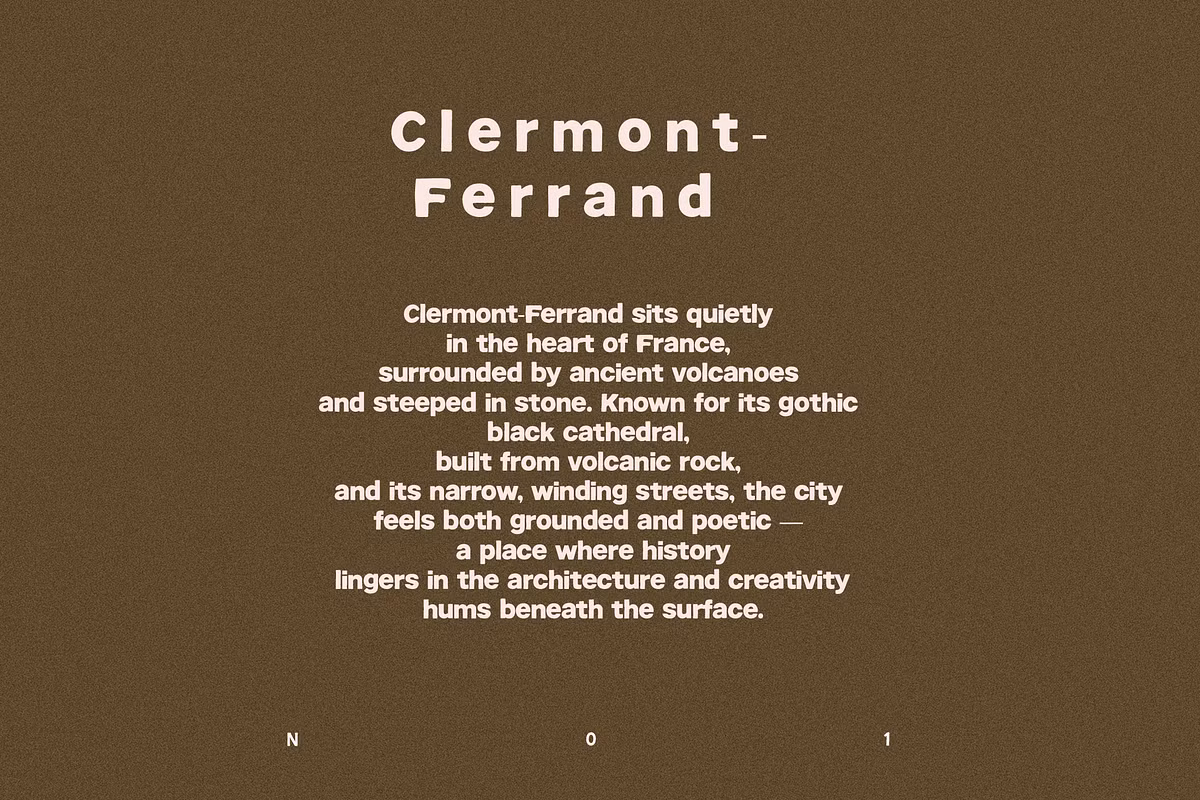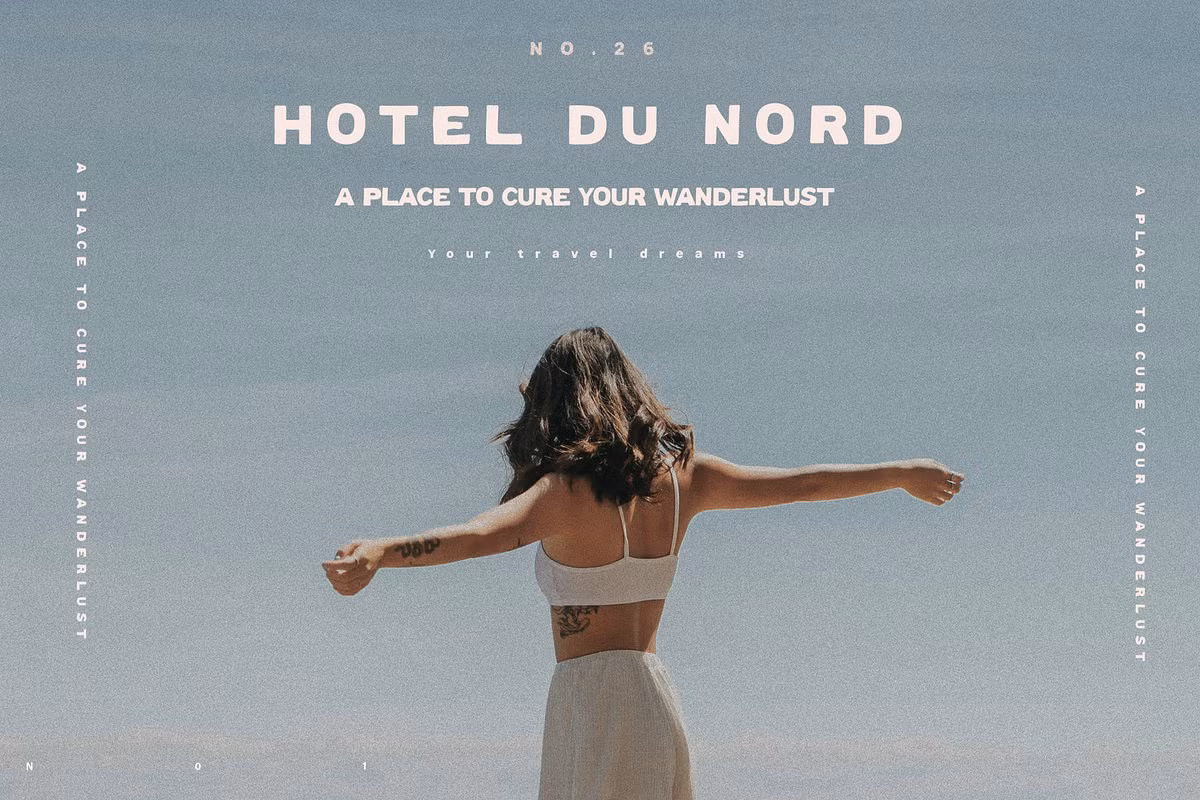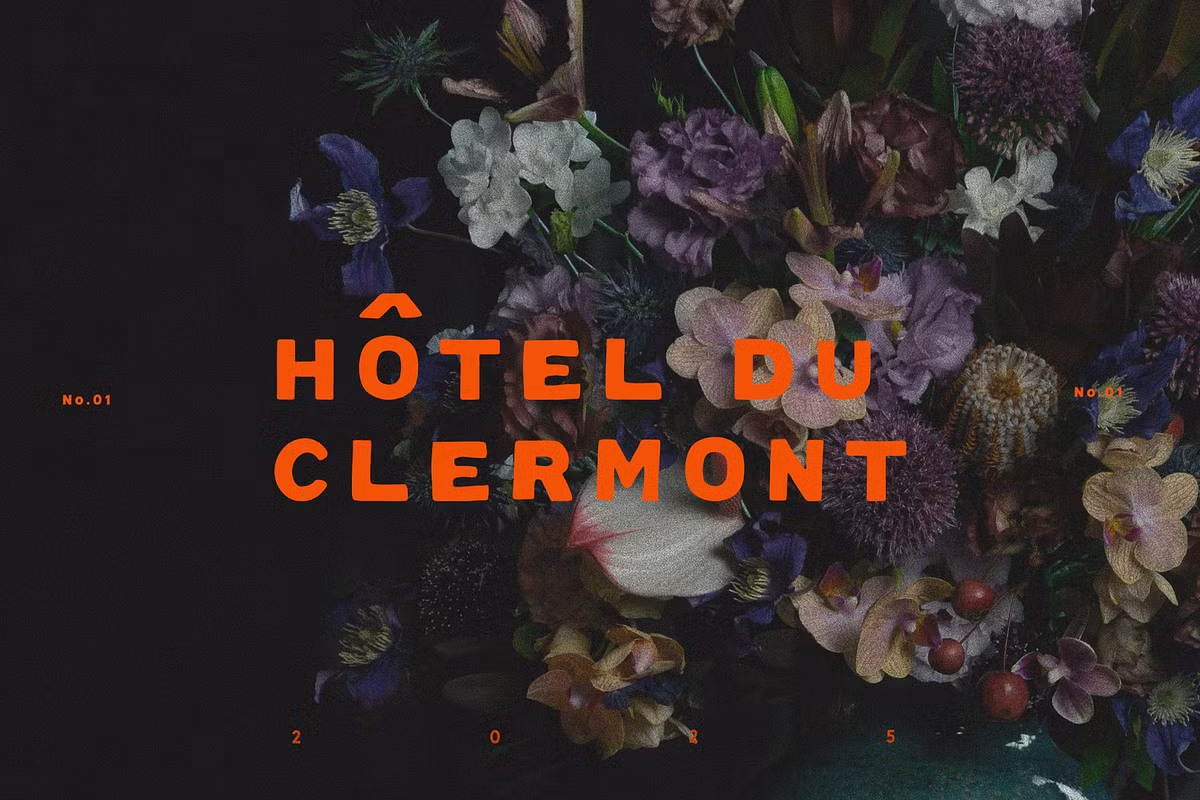
Clermont Bold Handwritten Sans Serif: Charming Typeface for Creative Brands
Welcome to the world of Clermont Bold Handwritten Sans Serif. Clermont Bold Handwritten Sans Serif has character, charm and calm confidence. The designer made Clermont Bold Handwritten Sans Serif as more than a set of letters. The designer gave each curve and line a purpose. Clermont Bold Handwritten Sans Serif stands out with shape. Clermont Bold Handwritten Sans Serif also has quirks that give each letter a human feel. I notice the warmth when I look at each letter.
The Clermont Bold Handwritten Sans Serif has a design style that stands out and catches the eye. The Clermont Bold Handwritten Sans Serif shows a bit of imperfection that feels handmade and that works well for brands that need to show realness. The Clermont Bold Handwritten Sans Serif has curves that are softly cut. Those curves give a friendly look that works in many places. I find the look to read and warm.
The typeface mixes a feel with a bit of charm. In my experience, the typeface works for boutiques and handmade goods. The typeface’s bold look does not overwhelm. The typeface instead whispers style and creativity. The typeface finds a balance that many other fonts miss.
Character Sets
Clermont Bold Handwritten Sans Serif has a character set. Clermont Bold Handwritten Sans Serif includes a set of characters. Designers can pick the letterform for each project. I have used Clermont Bold Handwritten Sans Serif. I see that the flexibility lets me personalize the text and keep the branding unique.
The font supports languages. That makes the font work for people around the world. I have used the font on my packaging. The font works well. If you are making packaging for products, the font can help you. If you are designing marketing materials for a brand, the font can help you. The font can adapt to your needs.
Clermont Bold Handwritten Sans Serif works well in the situations that designers face. I often pick Clermont Bold Handwritten Sans Serif because designers find Clermont Bold Handwritten Sans Serif useful for the needs of the project. Here are some main ways that Clermont Bold Handwritten Sans Serif can improve a project:
- Artisan Packaging: I think the font has an inviting style and that makes the font ideal for packaging designs that show handmade or slow-made products. The font adds a touch that connects with consumers who want authenticity.
- Branding for Businesses: If you run a boutique or a fine handmade goods shop, the typeface shows the brand personality. I have used the typeface in my shop. The typeface works in logos. The typeface works on business cards. The typeface works in materials.
- Designs: I find the font Clermont brings beach vibes. I think the font Clermont feels like a summer font for designs. The font Clermont creates a sense of relaxation and fun. I use the font Clermont for summer events, festivals, or beach-themed marketing campaigns.
- Invitations and Stationery: The charm of Clermont lifts any invitation or stationery design. The charm of Clermont makes the invitation or stationery perfect for weddings, parties, and special events that need a touch.